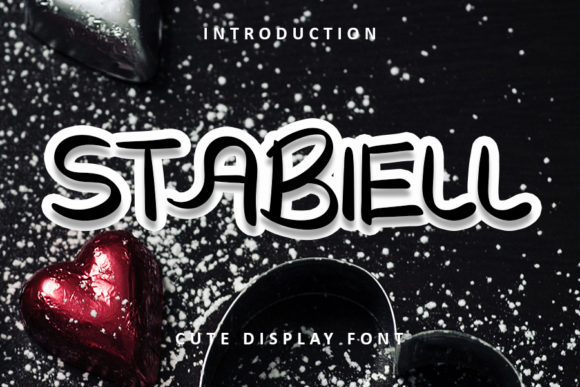
Embark on a Typographic Adventure with Stabiell Font: A Bewitching Display Font for Halloween Posters
In a realm of digital artistry, where words dance and visuals captivate, there exists a font that casts a spellbinding allure, entwining the essence of Halloween with the power of expression. Stabiell Font, a creation of FL Space, beckons you to unleash your creativity and conjure captivating Halloween posters that resonate with your audience.
Stabiell Font: The Perfect Canvas for Your Halloween Masterpieces
Immerse yourself in the enchanting world of Stabiell Font—a display font crafted with meticulous attention to detail, boasting a friendly and fresh personality that complements an array of projects. Whether you seek to conjure spine-chilling flyers, haunting invitations, or otherworldly social media graphics, Stabiell Font stands ready to elevate your designs to new heights of visual intrigue.
A Font that Speaks the Language of Halloween
With Stabiell Font as your creative companion, you'll effortlessly weave tales of mystery and magic into your Halloween posters. Its distinct character lends itself seamlessly to the spooky season, evoking images of witches' cauldrons bubbling with mystical potions, ghosts dancing under the pale moonlight, and jack-o'-lanterns illuminating the night with their eerie glow.
Ignite Your Imagination and Captivate Your Audience
Embrace the boundless possibilities that Stabiell Font presents, allowing your imagination to soar and your creativity to flourish. Craft posters that transport viewers to a realm of enchantment, where anything is possible and the ordinary becomes extraordinary. Create designs that send shivers down spines and leave a lasting impression long after Halloween has passed.
A Font that Transcends Boundaries
Stabiell Font possesses an inherent versatility that extends far beyond the realm of Halloween posters. Unleash its potential in a myriad of projects, from whimsical invitations to eye-catching logos, from captivating social media posts to enchanting website designs. Its adaptability knows no bounds, enabling you to weave its magical touch into a diverse tapestry of creative endeavors.
Experience the Magic of Stabiell Font Today